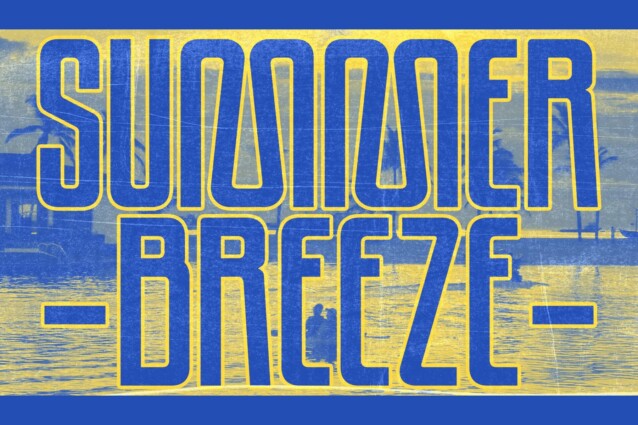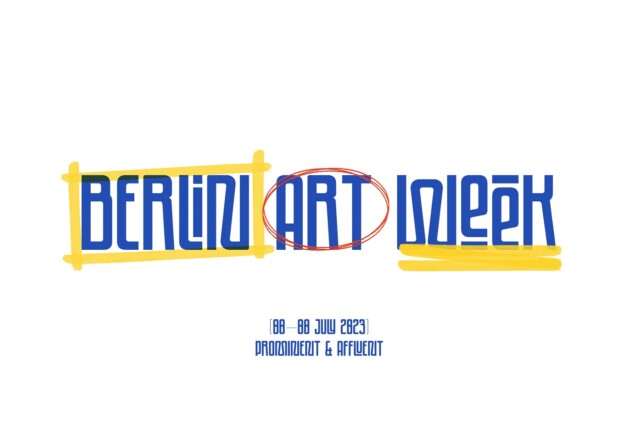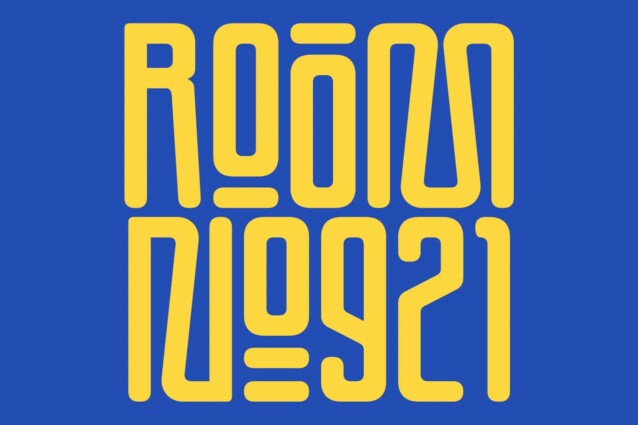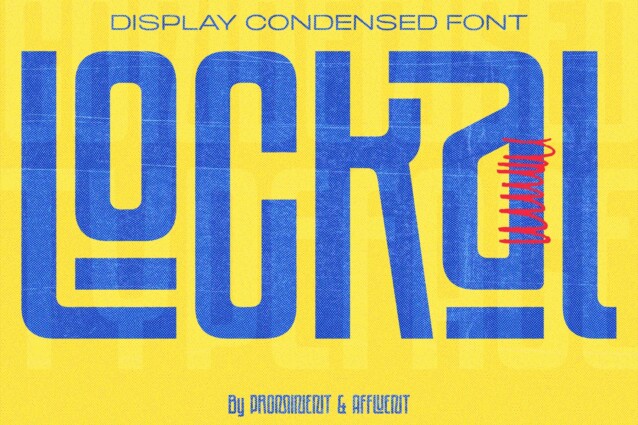
Lockal Font
Lockal Font is a condensed type with a simple and playable font. With a solid structure and an impressive collection of ligatures, this bad boy is bound to make your creations pop.
But wait, there’s more! Lockal comes in not one or two but THREE styles – Regular, Rounded, and Rough. And as if that wasn’t enough, each style also has an oblique mode for when you need that extra edge.
So whether you’re working on a branding project or creating eye-catching posters, Lockal has got your back. Trust us; your clients will be blown away by the results.